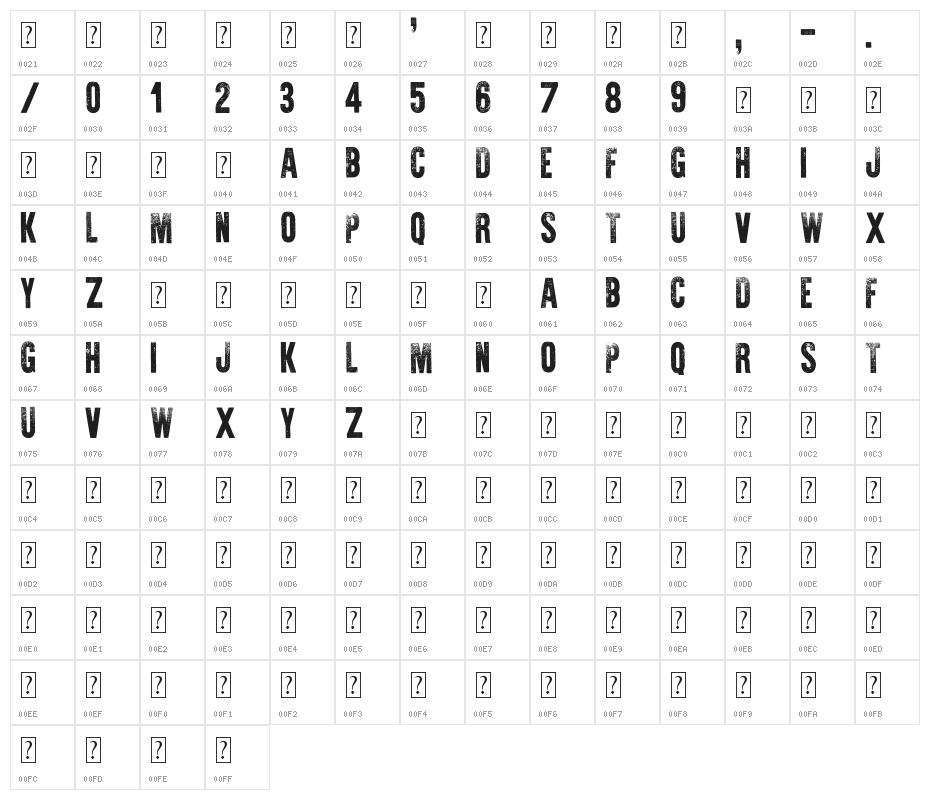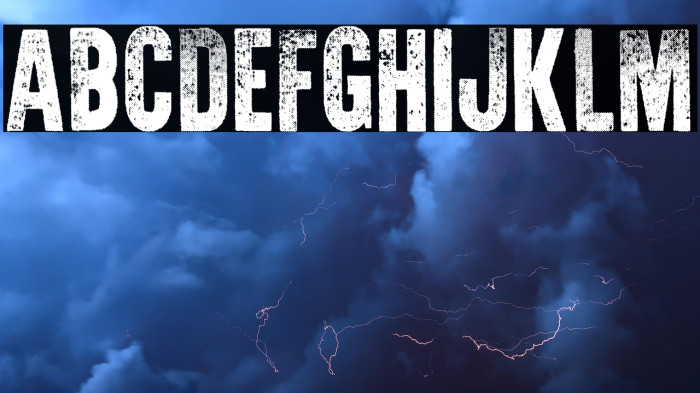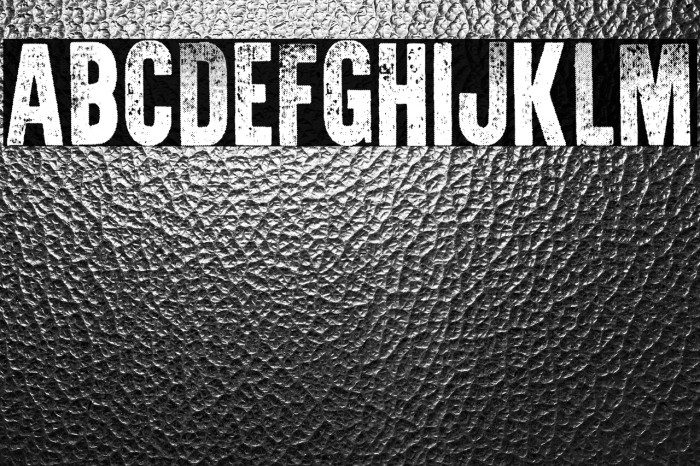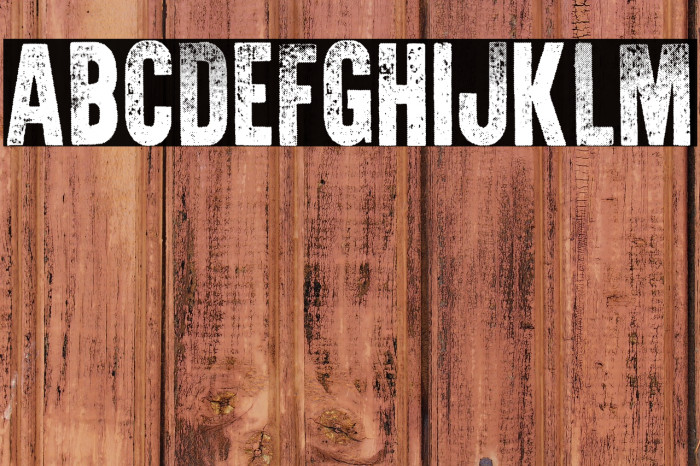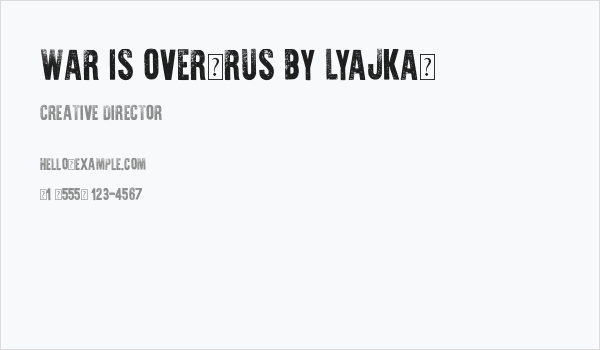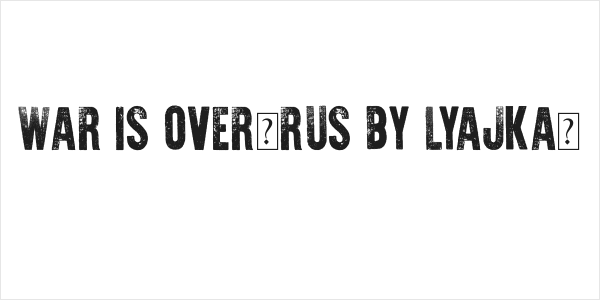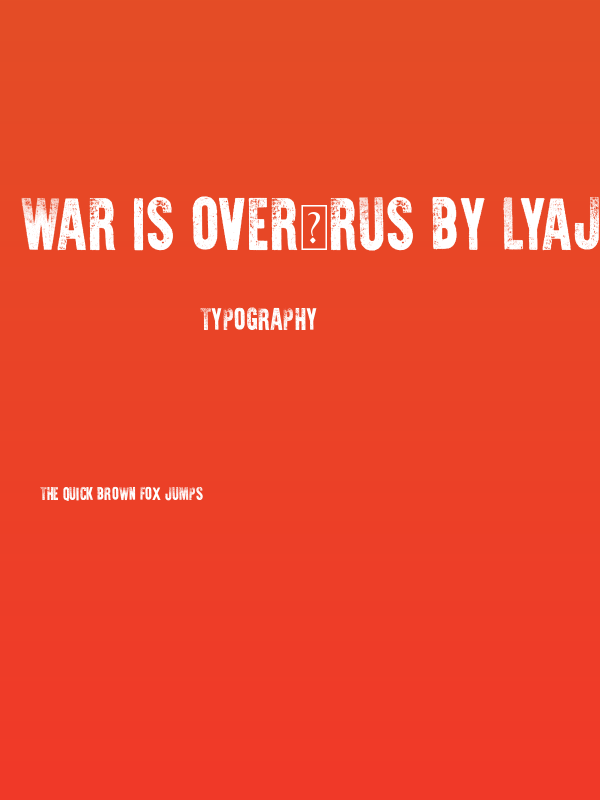
War is Over(RUS BY LYAJKA) Font
War is Over(RUS BY LYAJKA) Description
This font features a bold, distressed style with a gritty texture that gives it a rugged, worn appearance. The characters are uppercase and have a uniform height, contributing to a strong, impactful look. The texture appears as if the letters have been weathered or stamped, adding a vintage and industrial feel. The strokes are thick and consistent, providing a solid presence on the page. This font is ideal for creating a bold statement and can be used to evoke a sense of history or rawness in design projects.